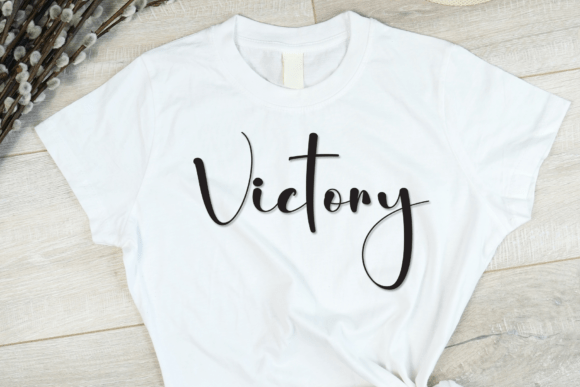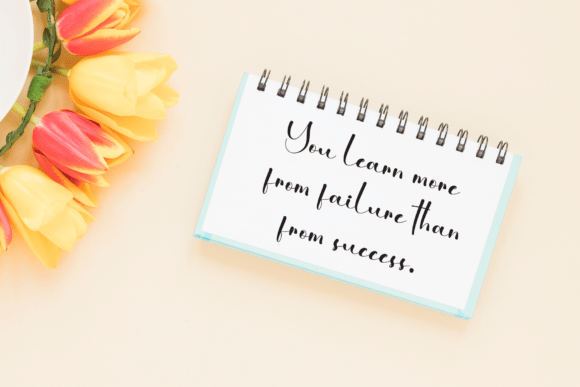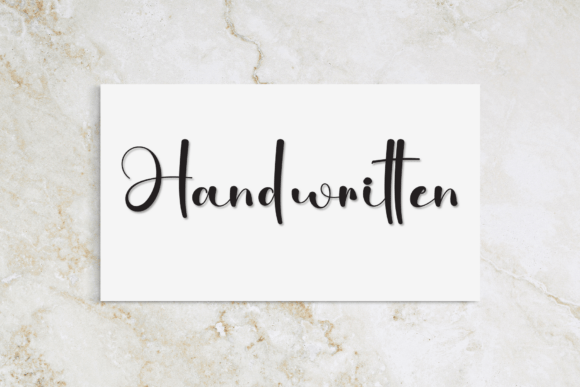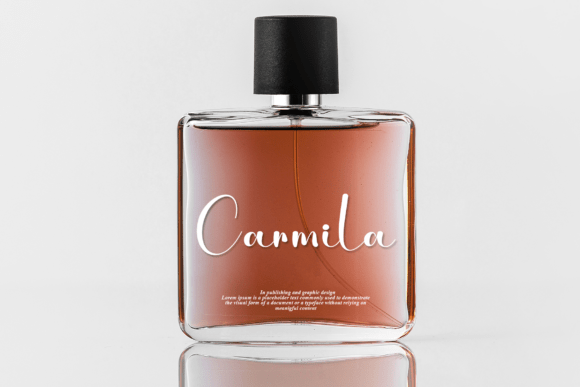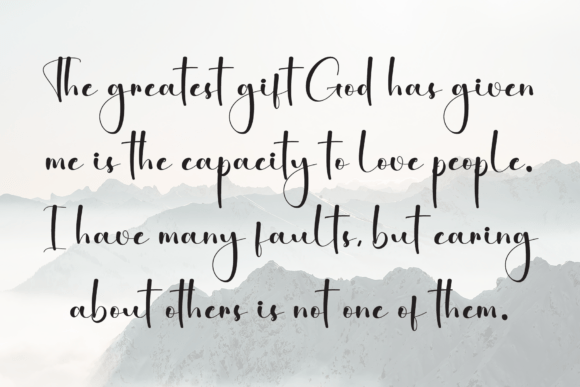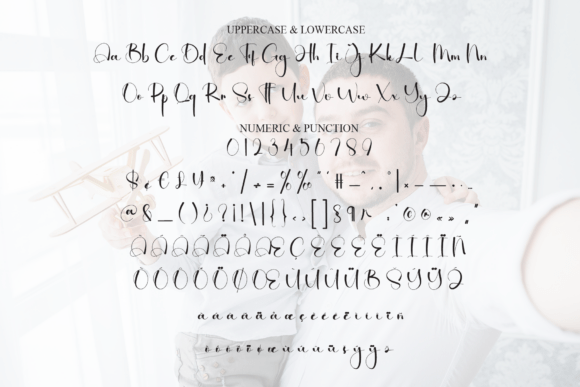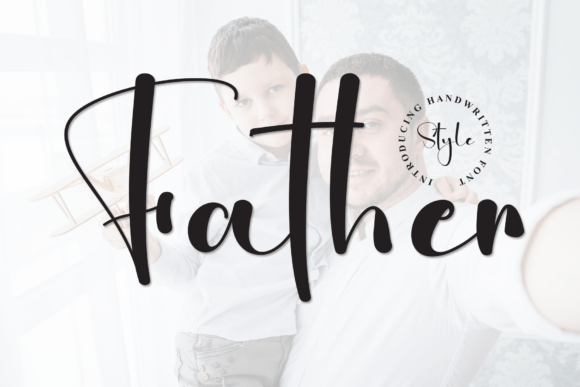
Introducing Father Font: Elevate Your Designs with Elegance and Modern Charm
In the world of typography, a font can make all the difference in transforming a design from ordinary to extraordinary. For those seeking a stylish script font that exudes elegance and modern charm, look no further than Father Font. This beautifully crafted typeface combines fluid strokes, graceful curves, and carefully balanced letterforms to capture the essence of hand-drawn calligraphy with a contemporary edge.
The Beauty of Father Font
Father Font is more than just a collection of letters; it’s an artistic expression that brings a touch of sophistication and personality to any design. Its natural flow and refined details make it an ideal choice for a variety of applications, from logos and invitations to packaging and social media graphics. Whether you’re a designer looking to elevate your branding or a crafter seeking to add a personal touch to your projects, Father Font is the perfect tool to help you achieve your creative vision.
Key Features of Father Font
• Fluid Strokes: Father Font features smooth, flowing strokes that give it a dynamic and organic feel.
• Graceful Curves: The font’s carefully crafted curves add a touch of elegance and sophistication to any design.
• Balanced Letterforms: Each letterform is meticulously designed to ensure perfect balance and harmony, making it easy to read and visually appealing.
• Contemporary Edge: Father Font brings a modern twist to traditional calligraphy, making it perfect for designers looking for a fresh and stylish look.
Applications of Father Font
Father Font’s versatility makes it suitable for a wide range of design applications. Here are some ideas to get you started:
• Logos: Create a lasting impression with a custom logo that showcases your brand’s personality and style.
• Invitations: Add a touch of elegance to your wedding invitations, birthday parties, or other special events.
• Packaging: Elevate your product packaging with a stylish and sophisticated font that reflects your brand’s values.
• Social Media Graphics: Create engaging social media graphics that stand out from the crowd and showcase your brand’s personality.
Why Choose Father Font?
With so many fonts available, why choose Father Font? Here are just a few reasons why designers and crafters love this stylish script font:
• Unique and Memorable: Father Font’s distinctive style ensures that your designs will stand out from the crowd and leave a lasting impression.
• Elegant and Sophisticated: The font’s elegant curves and refined details add a touch of sophistication to any design.
• Versatile: Father Font is suitable for a wide range of design applications, making it a valuable addition to any designer’s toolkit.
In conclusion, Father Font is a stylish script font that offers a unique blend of elegance, modern charm, and versatility. Whether you’re a designer looking to elevate your branding or a crafter seeking to add a personal touch to your projects, this font is sure to impress. With its fluid strokes, graceful curves, and carefully balanced letterforms, Father Font is the perfect choice for anyone seeking to add a touch of sophistication and personality to their designs.